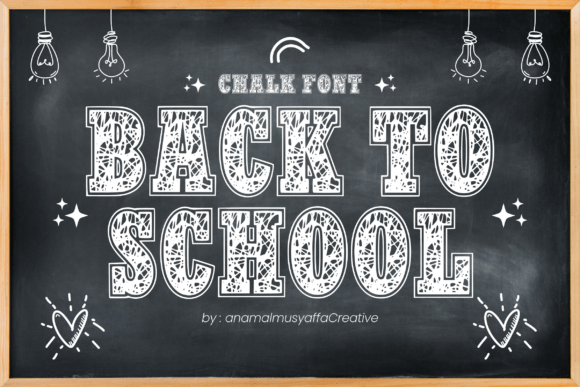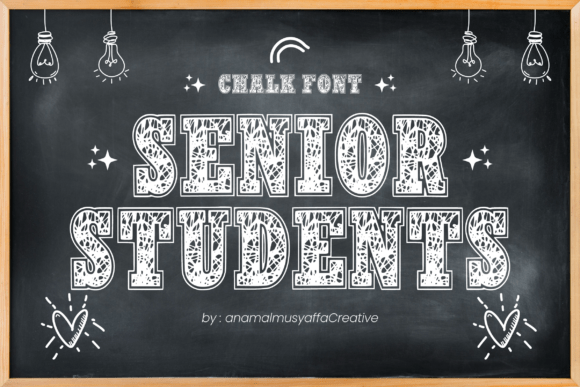
Introduction to Magicchalk Regular Font Font
Fonts play a crucial role in design, and the Magicchalk Regular Font font is a typeface that brings both character and versatility to any project. Whether you’re working on a branding project, a website, or a print design, the Magicchalk Regular Font font offers a unique style that can elevate your work.
Welcome to the world of βMagic Chalkβ, a contemporary chalk-style font that radiates creativity and joy through its distinct and engaging characters.
Its versatility meshes seamlessly with a range of uses β may it be infusing character to your t-shirt designs, adding intrigue to your mugs or tote bags, or even breathing life into animations or comic titles The limit is your imagination.
The Magicchalk Regular Font font is more than just a typeface β it’s a design tool that helps you communicate your message with style and clarity. Its unique character set and versatile design make it suitable for a wide range of applications, from elegant invitations to bold headlines.
With its carefully crafted letterforms and balanced proportions, the Magicchalk Regular Font font ensures readability and visual appeal across all mediums.
What makes Magicchalk Regular Font font special?
The Magicchalk Regular Font font stands out with its unique design, exceptional readability, and versatility across various design applications.